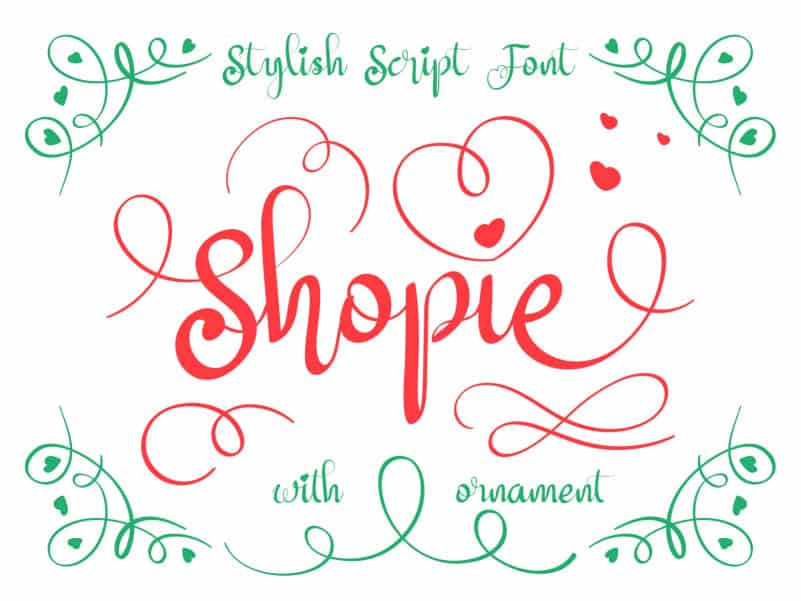
Shopie Calligraphy Font
Shopie Calligraphy Font is a delicate script font decorated with curved lines. Not too thin and not too thick, balanced and varied, this font was designed to enhance the beauty of your projects.